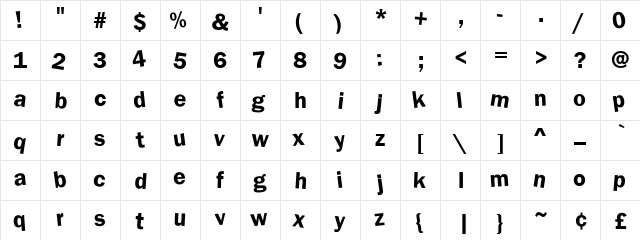
DdaftT-lowercase Font Preview
DdaftT-lowercase DdaftT-lowercase
DdaftT-lowercase Font Details
| Style | DdaftT-lowercase |
| Designer | Bree Gorton & George Herbert Hirst |
Design Context for DdaftT-lowercase Typeface
DdaftT-lowercase is a composed and adaptable typeface that performs quietly and consistently across a wide range of design contexts.